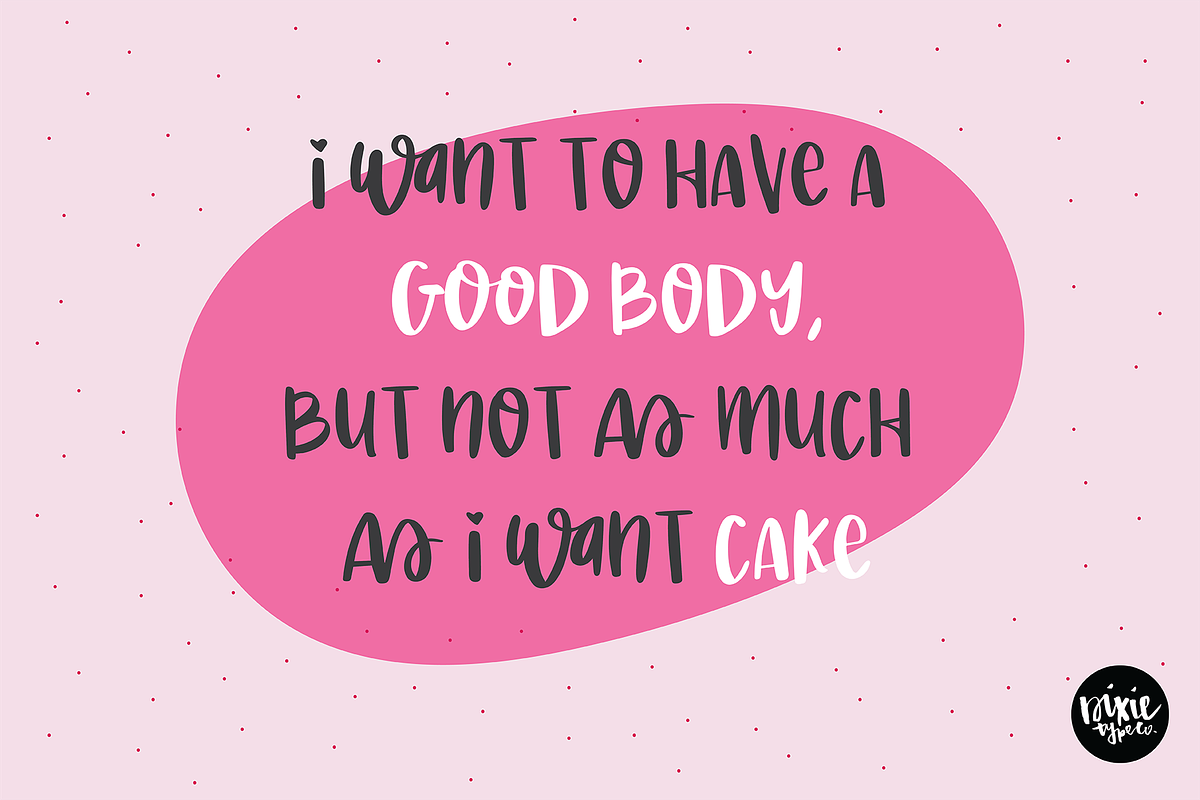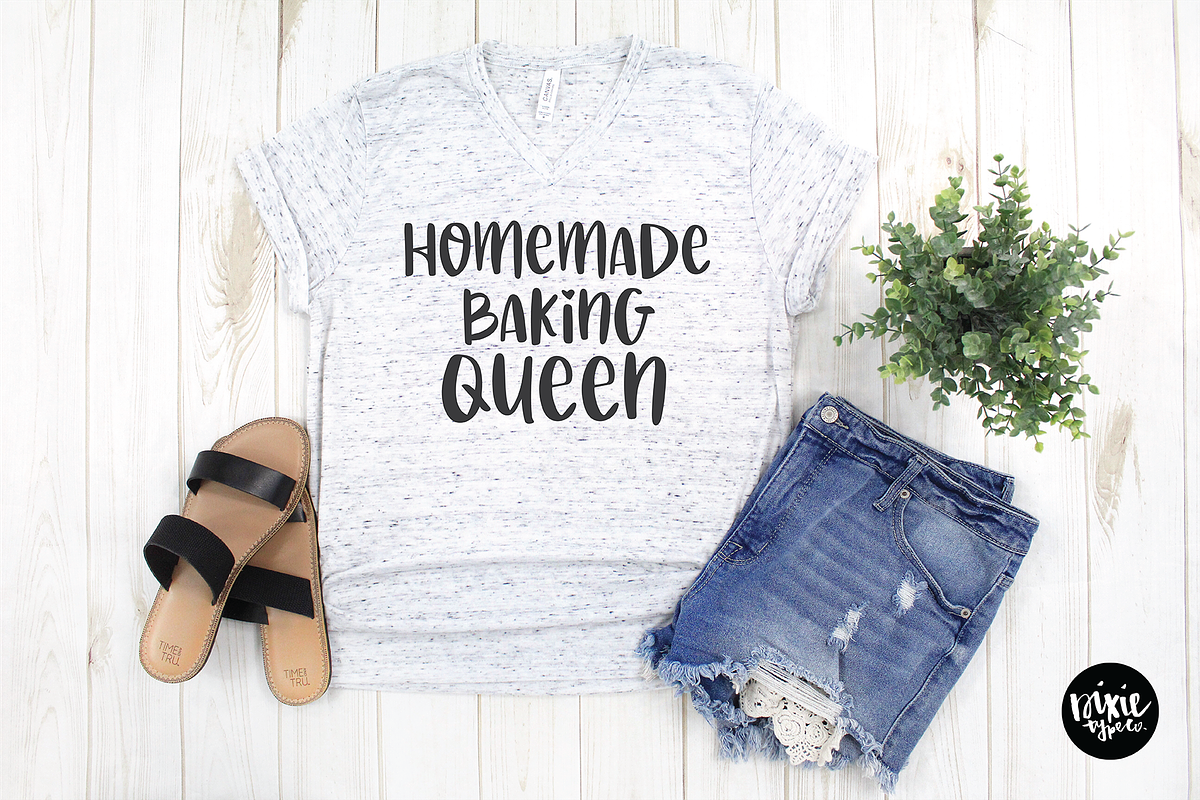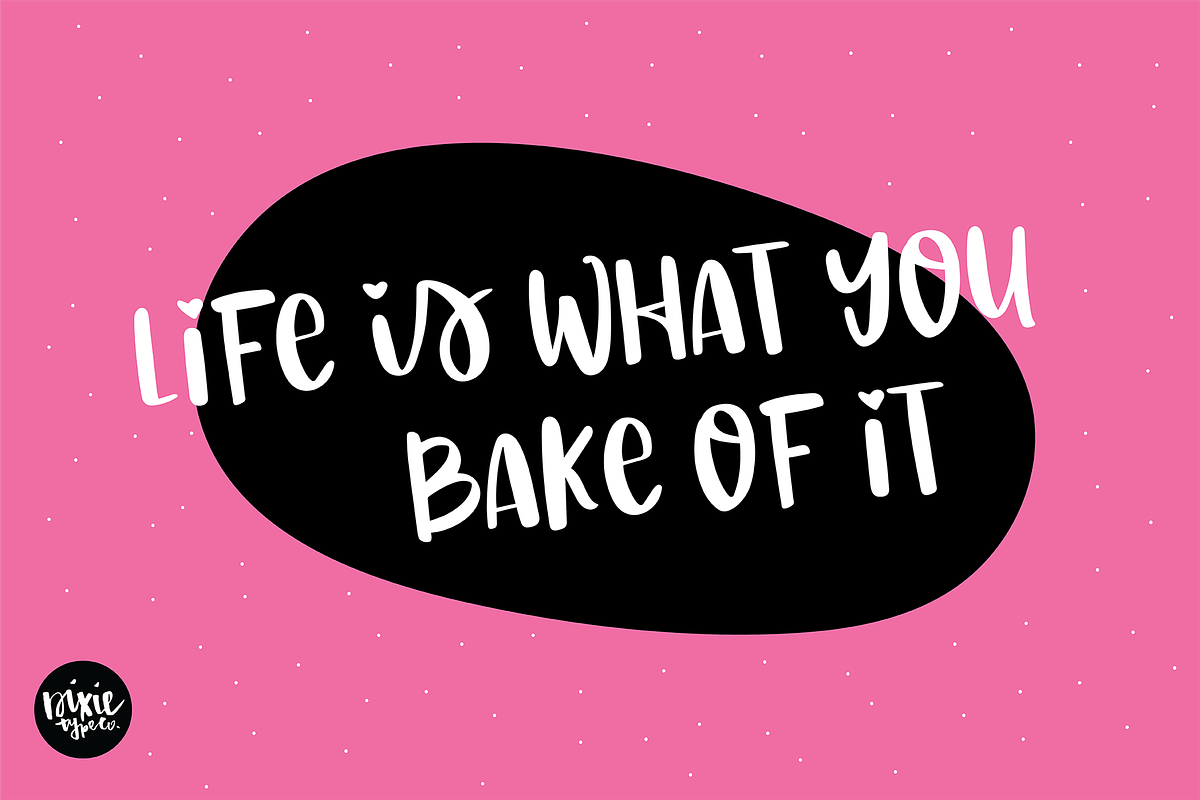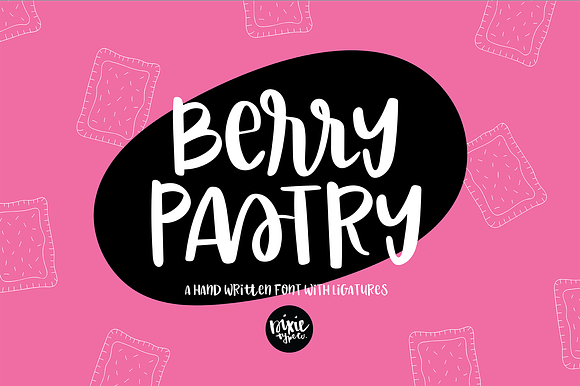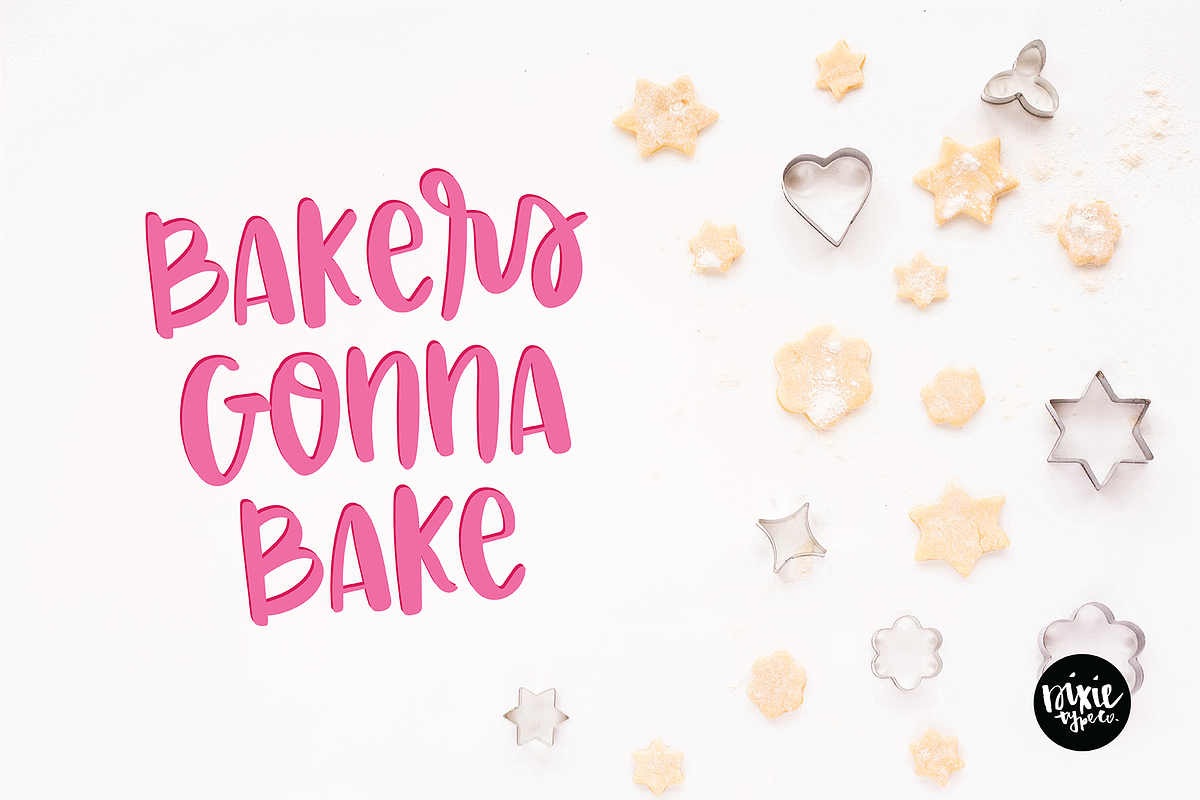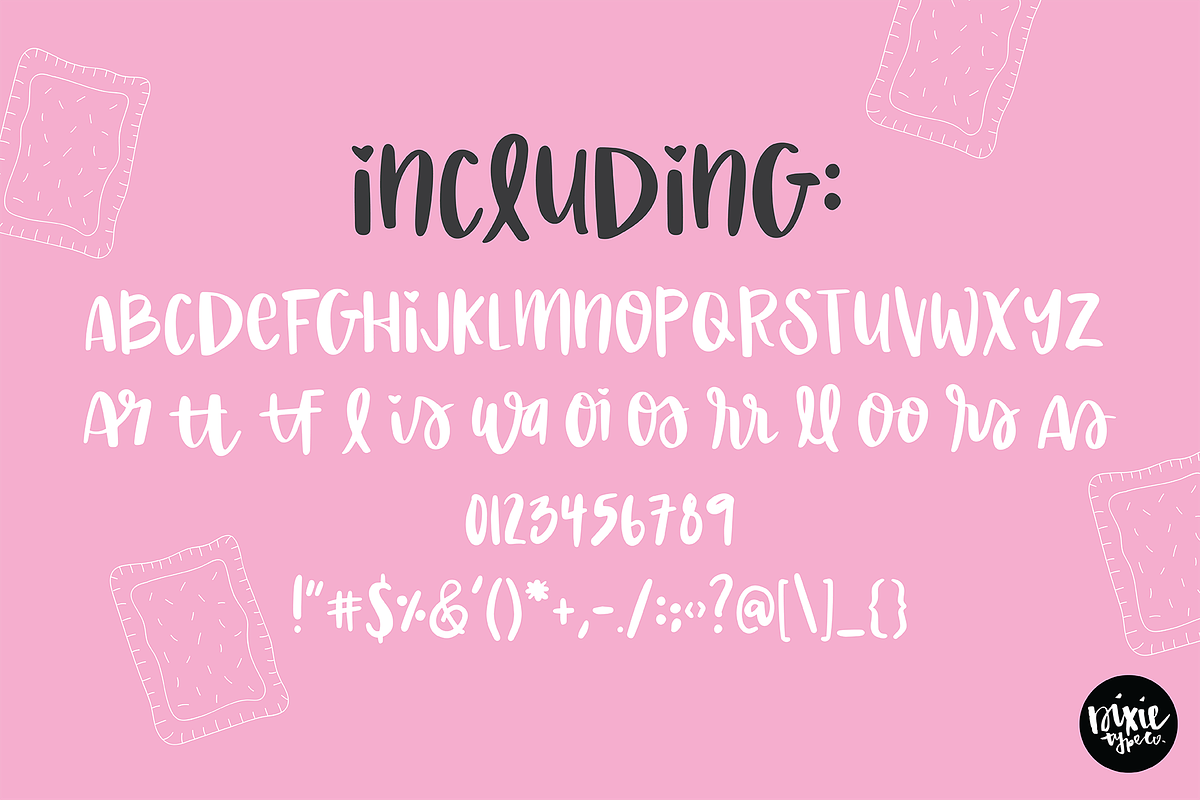
BERRY PASTRY Handwritten Script Font
Berry Pastry (DTC Berry Pastry)
{ A typographic font hand-lettered with love by Dixie Type Co. }
Berry Pastry is a brush handwriting script font with ligatures.
Font includes: Upper and lowercase glyphs (both sets are the same characters), numbers, punctuation, and 13 ligatures. The ligatures included in the font are OpenType features. If you do not have OpenType features enabled, make sure you have access to a character map or glyphs panel to use the extras. We also included an extra font file with the 13 ligatures.
- Font includes: Upper and lowercase glyphs (both sets are the same characters), numbers, punctuation, and 13 ligatures.
- The ligatures included in the font are OpenType features.
- We also included an extra font file with the 13 ligatures.